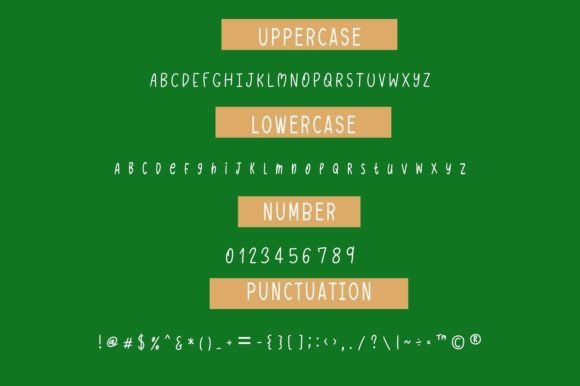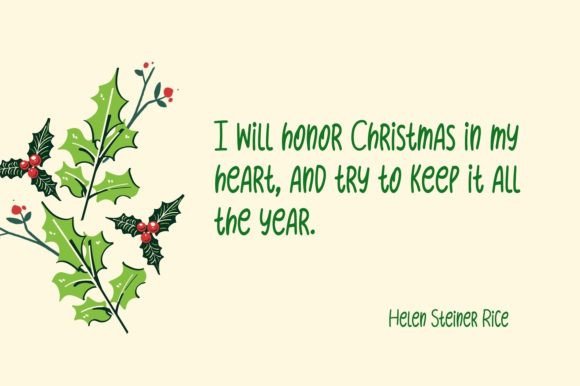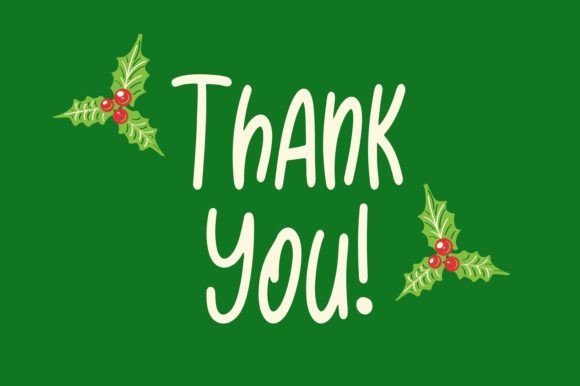
Introduction to Norabel Font
Norabel is a cute and festive handwritten font.
The lightness of its characters makes it suitable for a wide range of design projects It embodies playfulness and authenticity and is the perfect choice for all your favorite projects, or even for blog posts, logos, branding, ads, invitations, greeting cards, planners, photo albums, decorations, and much more.